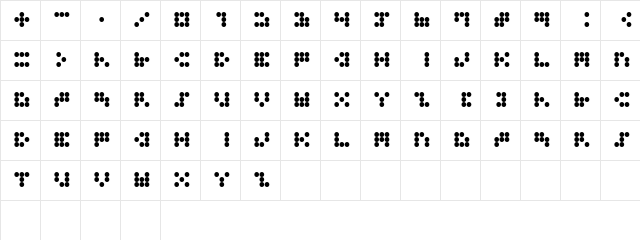
CIRCULAR9 E
Design Context for CIRCULAR9 Typeface
CIRCULAR9 takes a measured approach to typography — its balanced proportions and neutral character make it a reliable workhorse for both digital and print work.